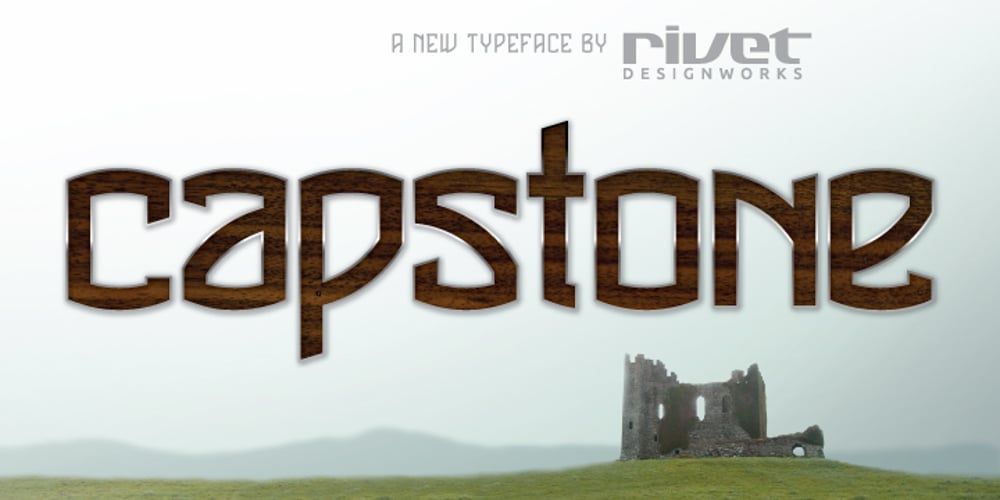
Capstone
Capstone font
Capstone Font Family was designed by William Scott McConnell and published by Rivet Designworks. Capstone contains 1 styles and family package options. Capstone is a display typeface influenced by the bold angular features of stone architecture, especially that of cathedrals and archways. It works well for short bold titles or brands.